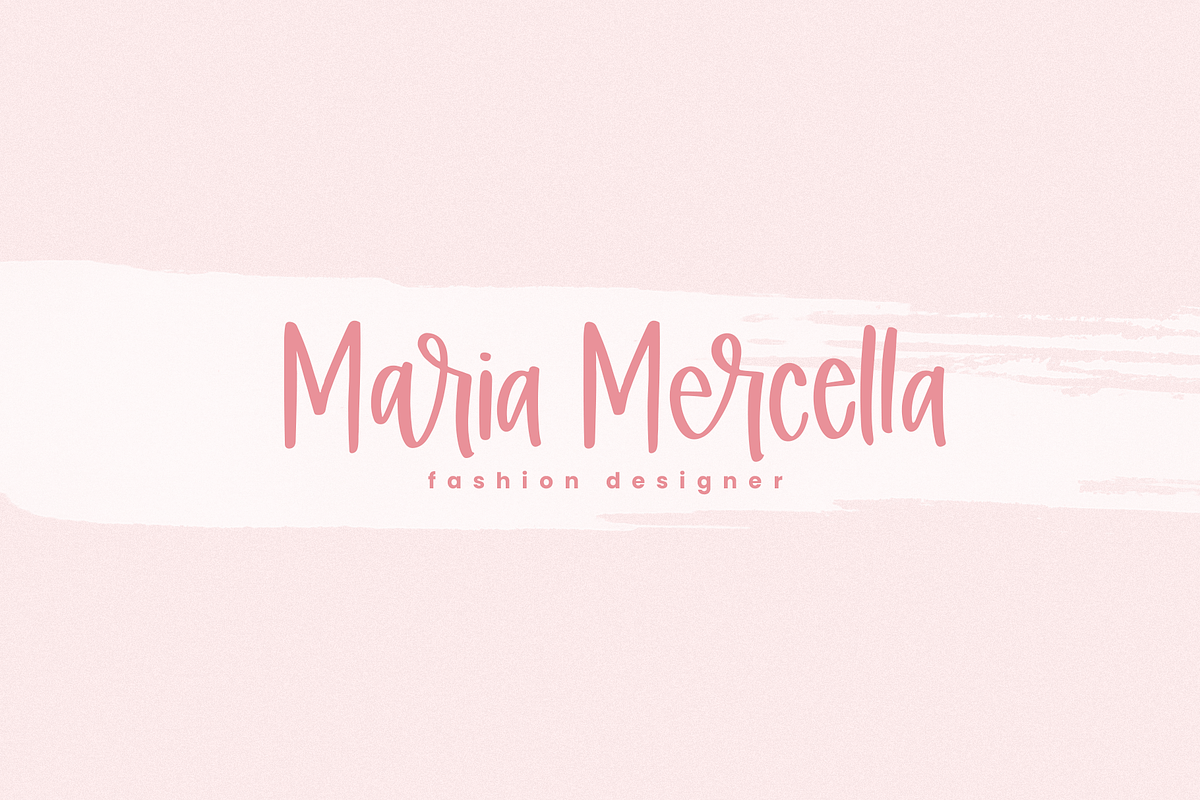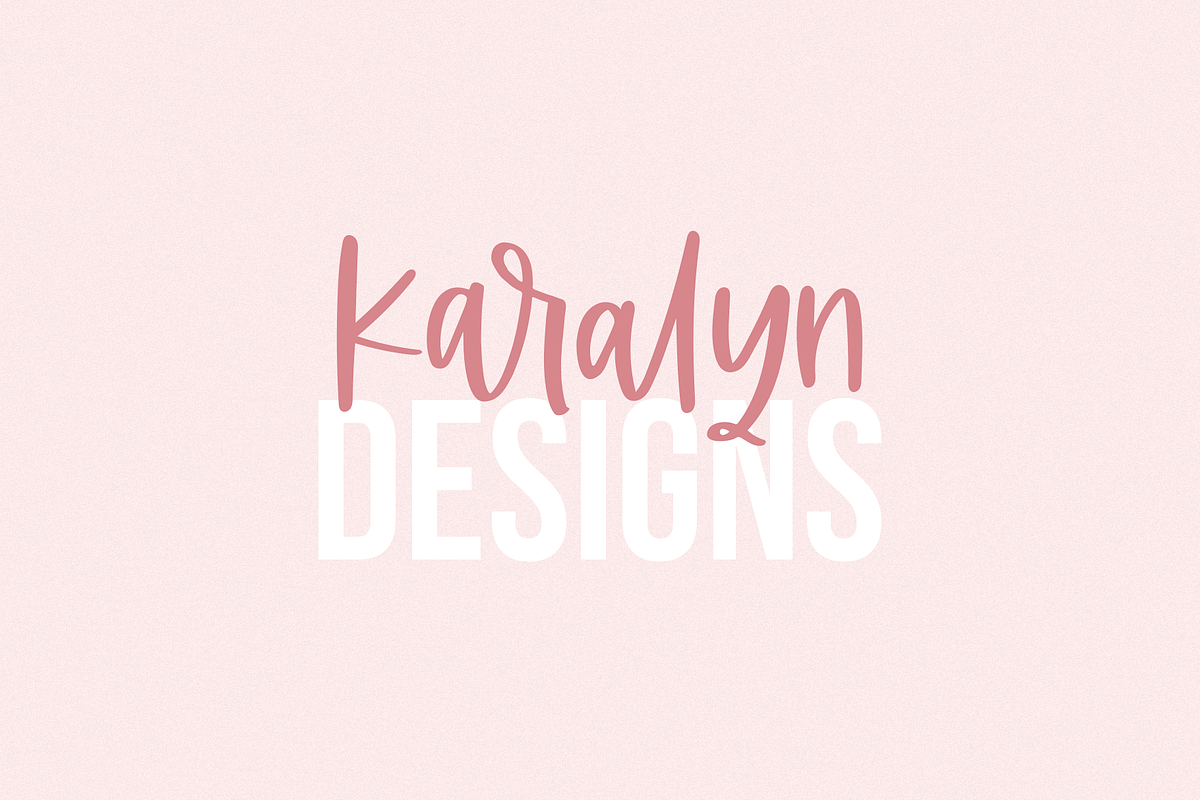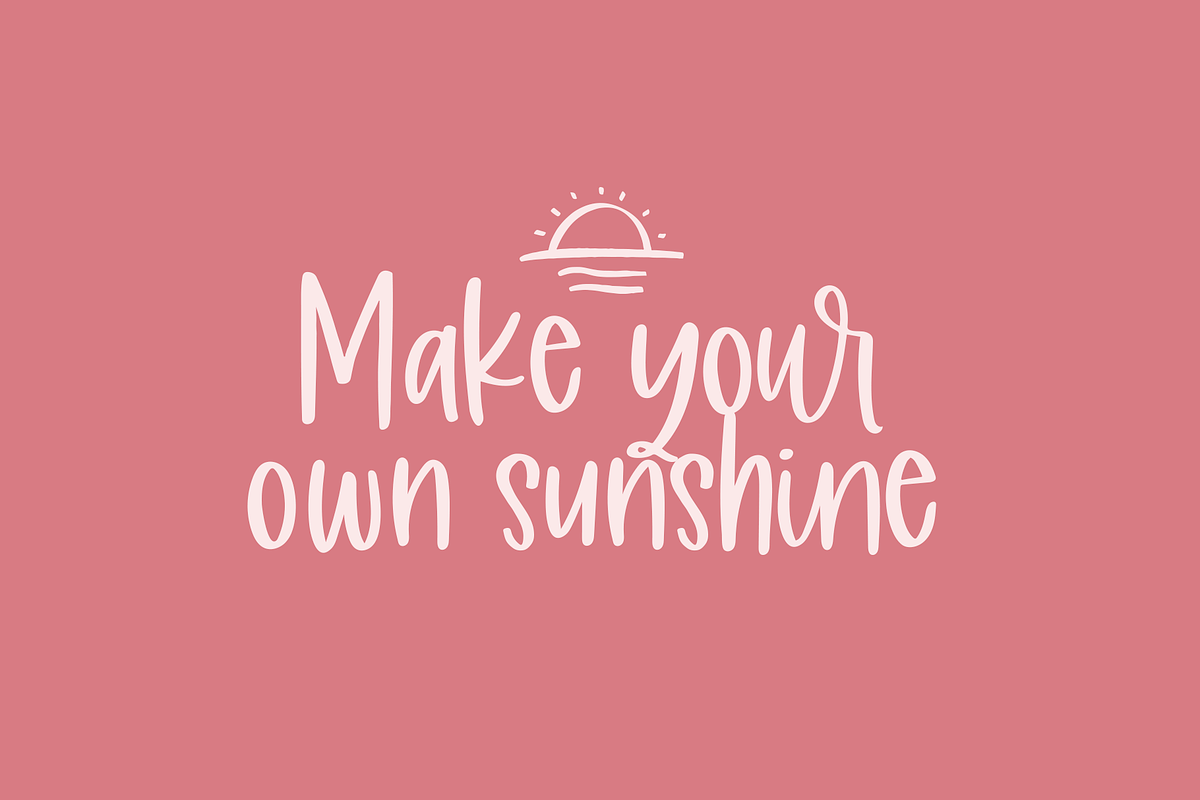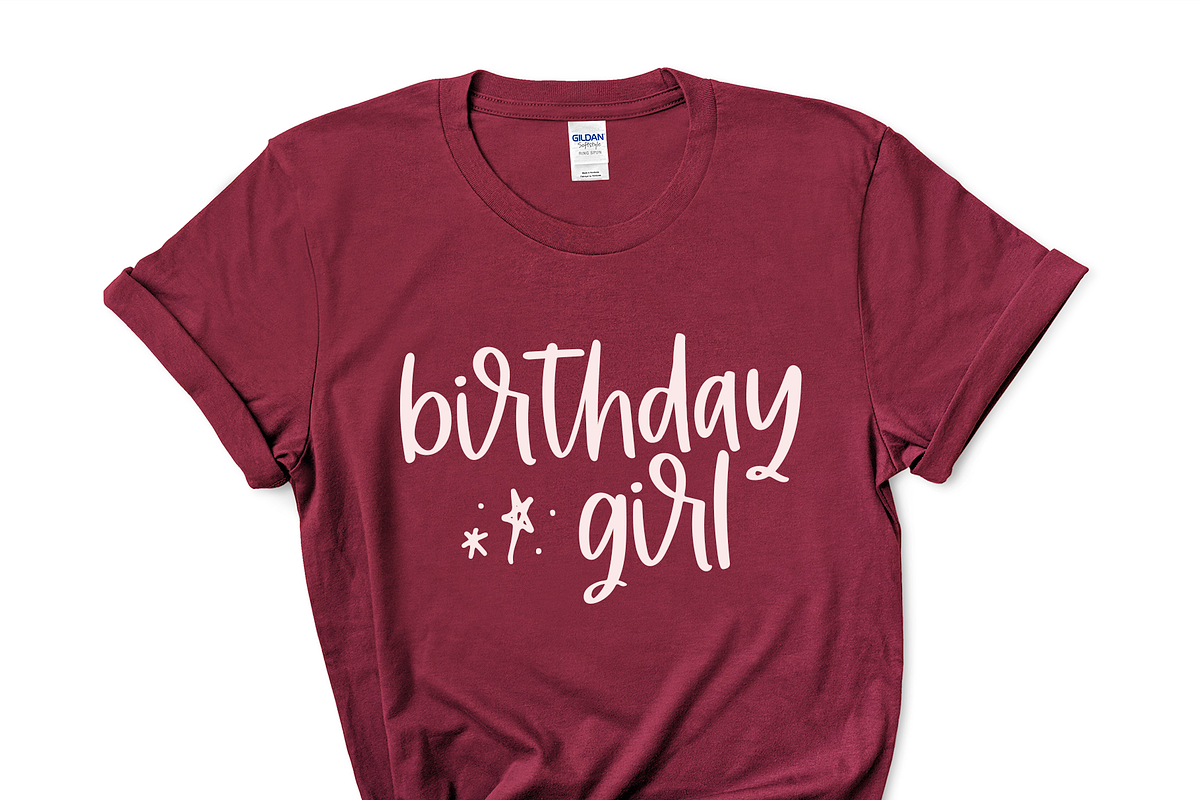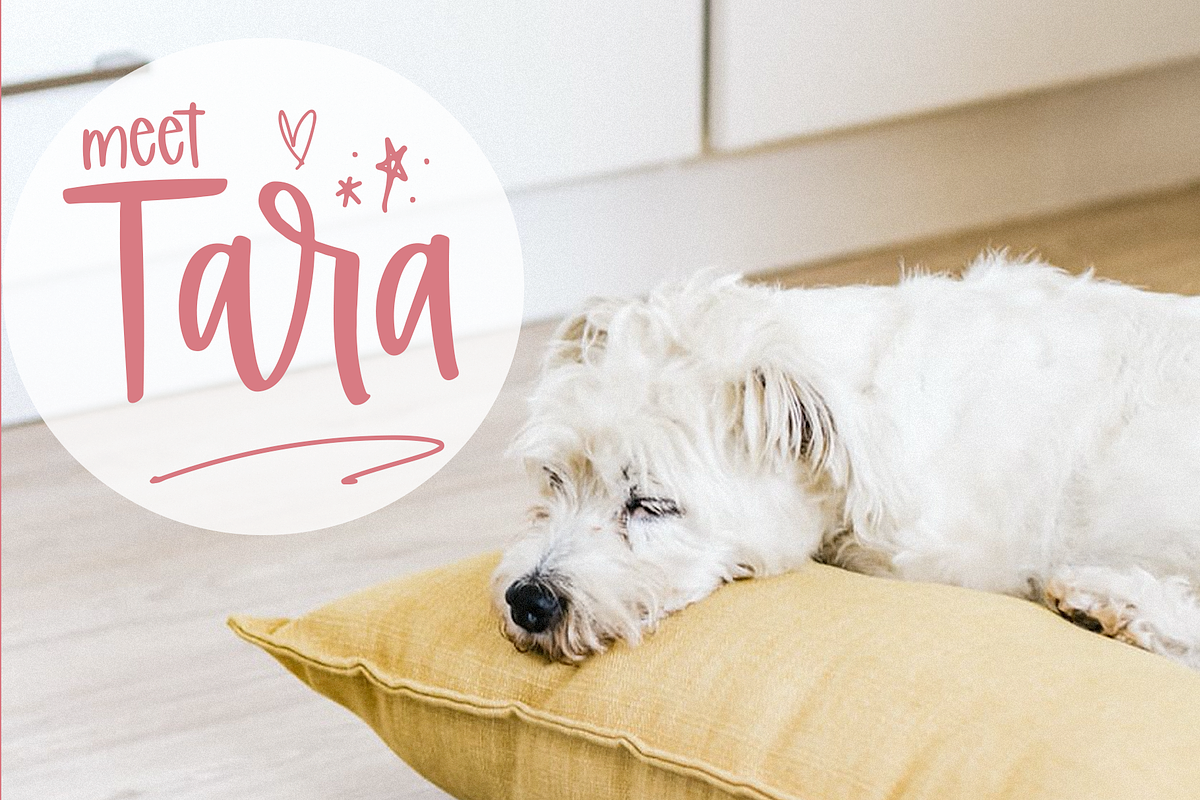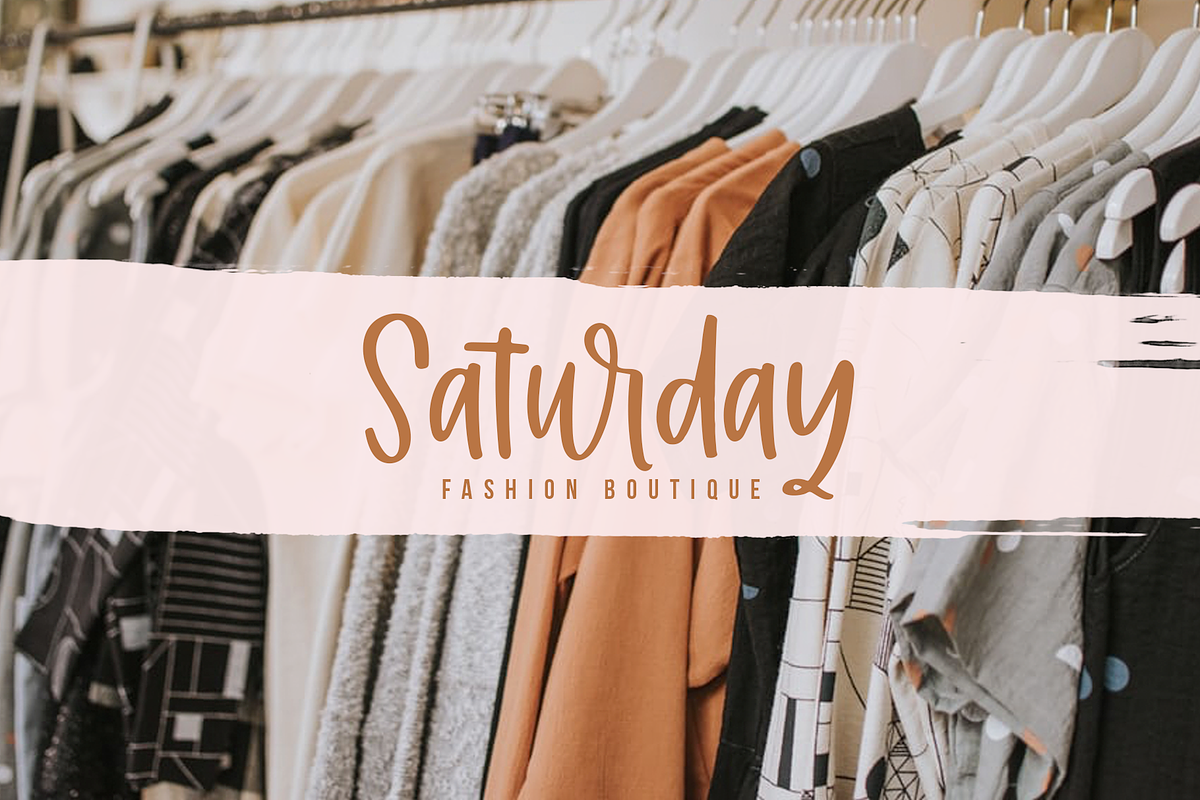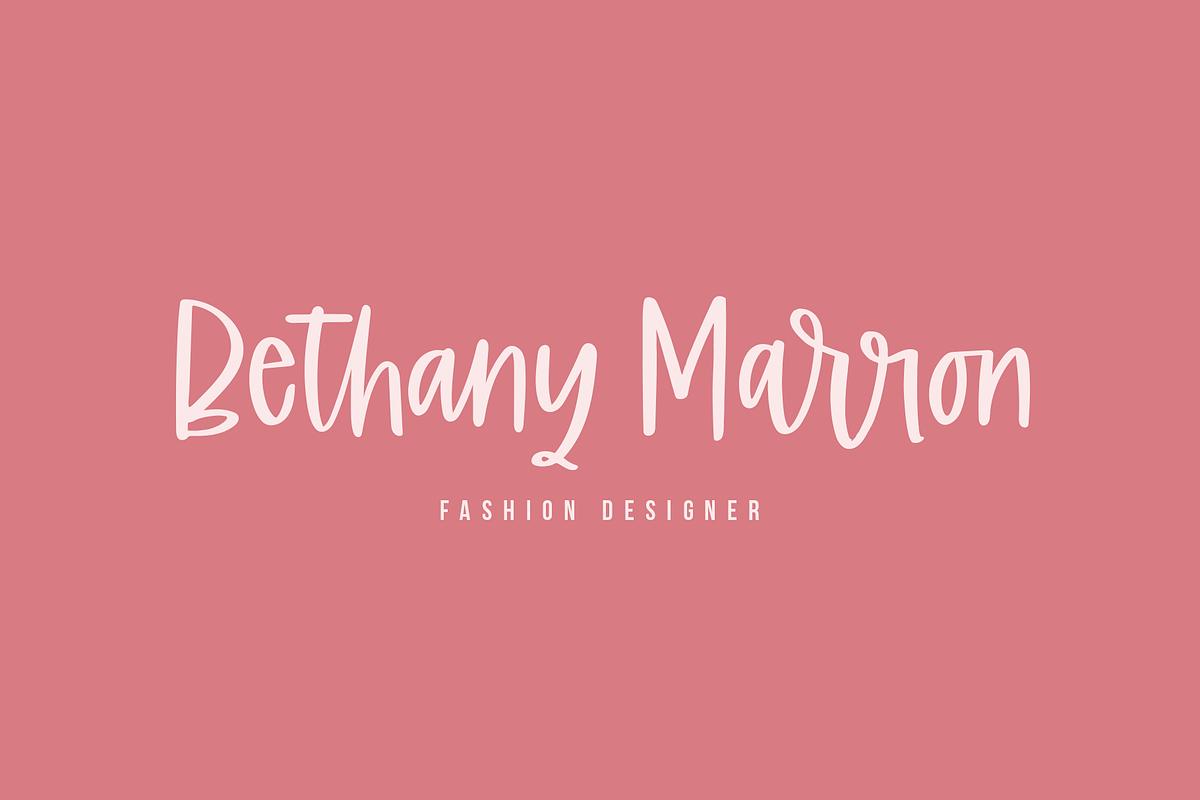
Stardom | Handwritten Font
Stardom is a fun handwritten font with a lot of character!
Use this font for logos, social media, websites, blogs, instagram, business cards, branding, and more!